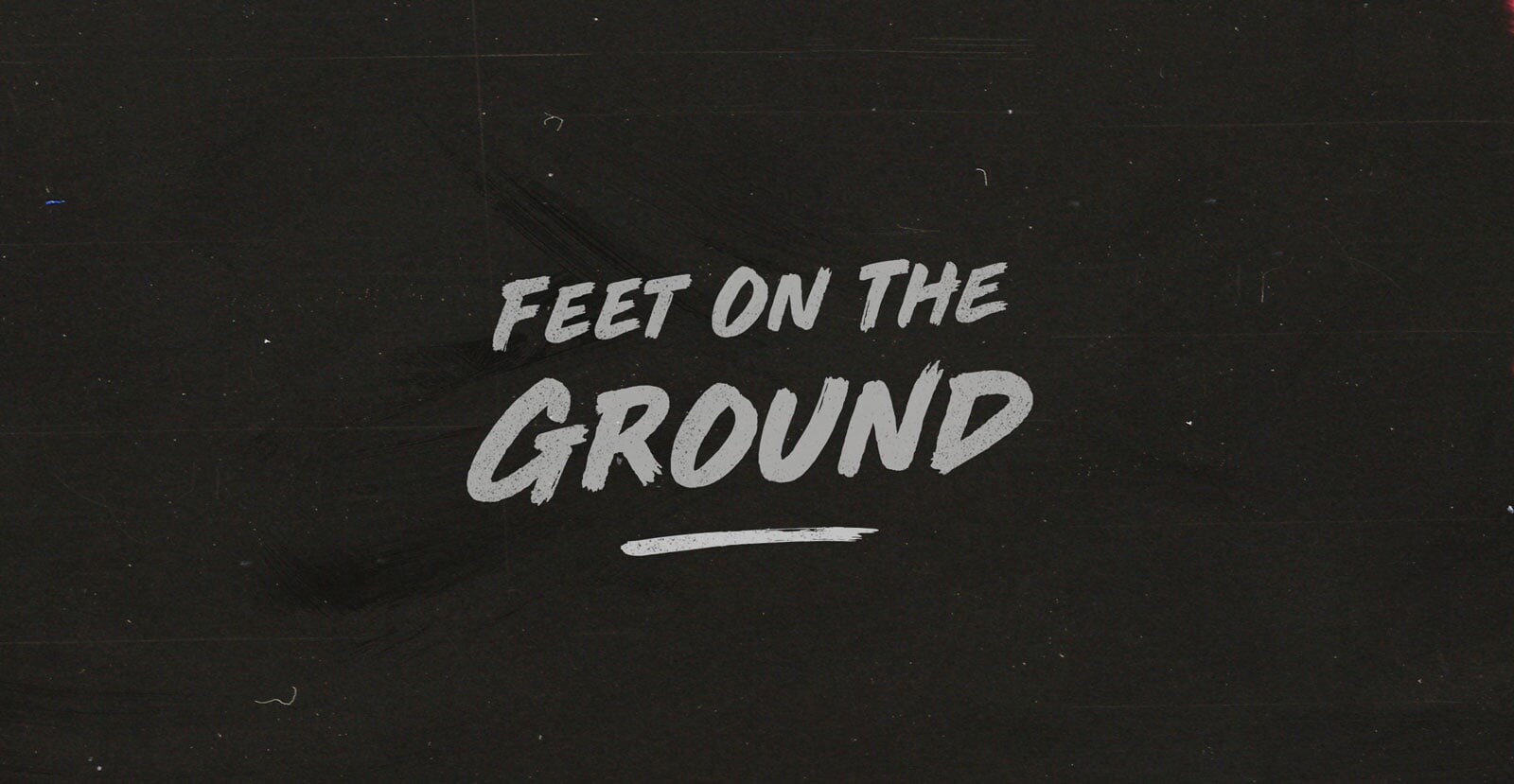
Ultra Fresh
The quality of anticipation, the necessity of good things to come. Spring runoff, budding leaves, an equation. The way that bread bakes is the way that paintings take shape, brush strokes before completion. Ultra Fresh inspiration. The promise; we'll make it.